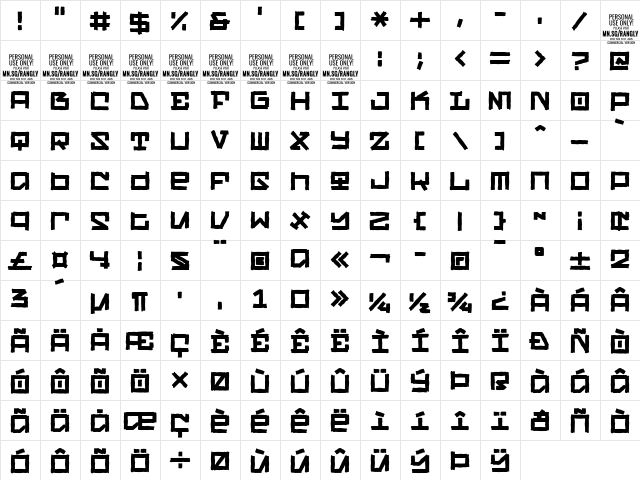
Rangly PERSONAL USE ONLY Regular
| Foundry | Mans Greback |
| Designer | Mans Greback |
Design Context for Rangly PERSONAL USE ONLY Typeface
Rangly PERSONAL USE ONLY is a composed and adaptable typeface that performs quietly and consistently across a wide range of design contexts.